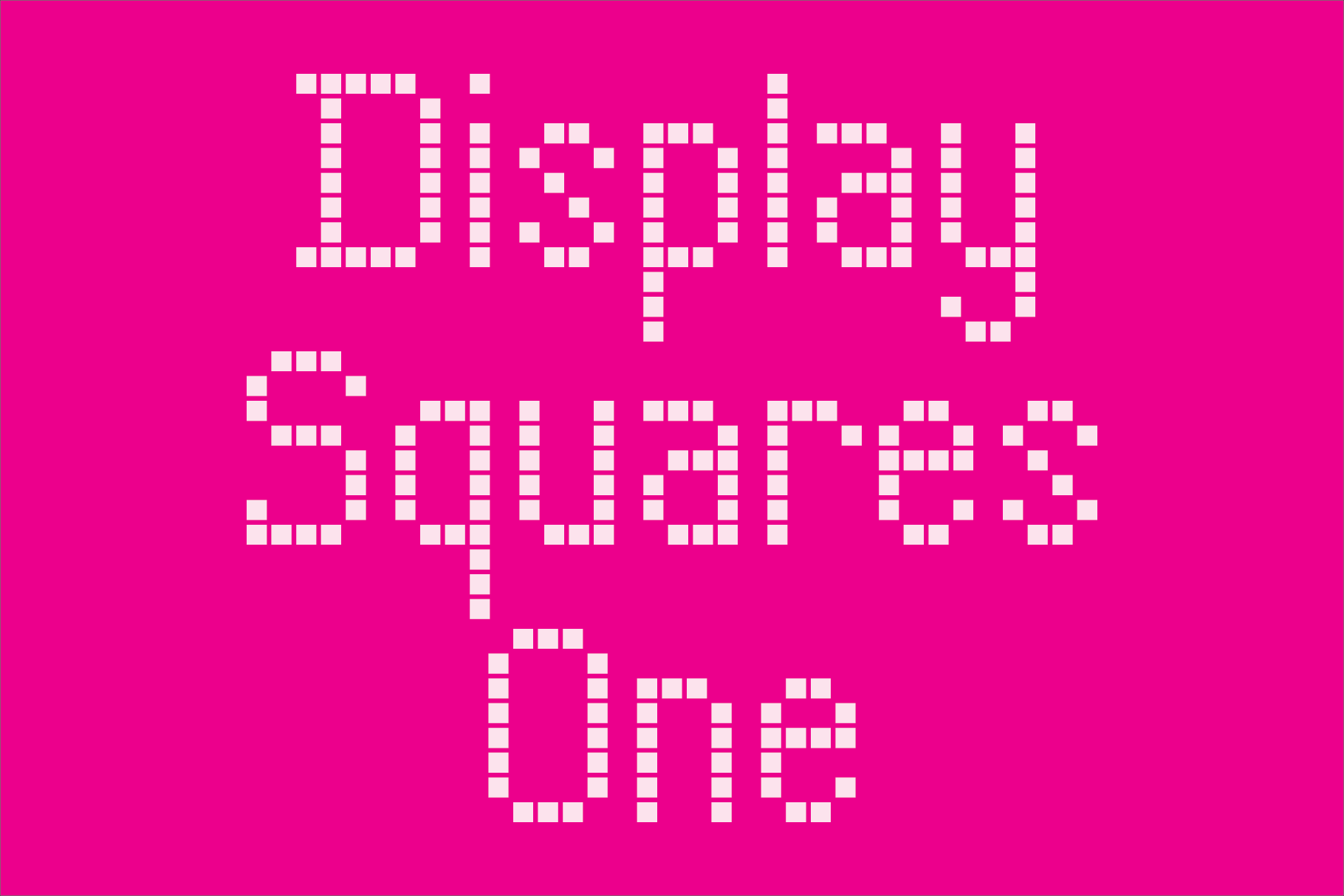
Display Squares One Font
Display Dots Seven is a display font not intended for text use. It was designed specifically for display, headline, logotype, branding, and similar applications. It has an uppercase and lowercase alphabets, numbers, dollar, pound and euro signs, and basic punctuation. The cap height is 8 squares tall.